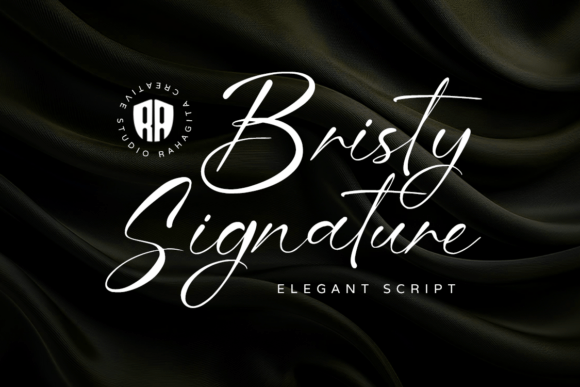
Unlock Elegance with Bristy Signature Font
Are you searching for a font that embodies sophistication, luxury, and timeless beauty? Look no further than Bristy Signature, a stunning script font designed to elevate your creative projects to new heights. With its graceful curves and delicately refined strokes, Bristy Signature is the perfect choice for designers and crafters seeking to add a touch of elegance to their work.
The Essence of Bristy Signature
Bristy Signature is more than just a font – it’s an experience. Its sophisticated script design exudes class and luxury, making it ideal for projects that demand a high level of refinement. Whether you’re working on book titles, logos, crafting, or branding and advertising materials, Bristy Signature provides the precise touch of finesse your project craves.
One of the standout features of Bristy Signature is its versatility. This font seamlessly merges with any theme, making it perfect for a wide range of applications. From business cards to skyline banners, social media posts to persuasive posters, and even exquisite invitations, Bristy Signature is the ultimate design companion.
Crafting Timeless Beauty
In today’s fast-paced digital landscape, it’s easy to get caught up in trends and fads. However, with Bristy Signature, you can create designs that stand the test of time. This font’s classic beauty and sophistication ensure that your work will remain elegant and refined for years to come, long after the latest design trends have faded.
Seamless Integration with Print and Digital Media
Whether your medium is print or digital, Bristy Signature offers an undeniably polished, superior set of typefaces that propels your creativity to exquisite new heights. Its exceptional clarity and precision make it perfect for both large-scale and small-scale designs, ensuring that your work looks stunning in any context.
Elevate Your Designs with Bristy Signature
So, what sets Bristy Signature apart from other fonts on the market? The answer lies in its unique ability to convey elegance and sophistication. With Bristy Signature, you can:
- Create stunning book titles and covers that demand attention
- Design eye-catching logos and branding materials that exude luxury
- Craft exquisite invitations and event materials that leave a lasting impression
- Develop persuasive posters and advertising materials that drive results
Discover the Allure of Bristy Signature
In conclusion, Bristy Signature is more than just a font – it’s a key to unlocking an elevated realm of design elegance and style. With its sophisticated script design, versatility, and timeless beauty, Bristy Signature is the perfect choice for designers and crafters seeking to create stunning, high-end designs. So why wait? Discover the allure of Bristy Signature today and take your creative projects to new heights.
Key Features of Bristy Signature
- Sophisticated script font design
- Graceful curves and delicately refined strokes
- Perfect for book titles, logos, crafting, and branding and advertising materials
- Seamlessly merges with any theme
- Exceptional clarity and precision
- Perfect for both print and digital media